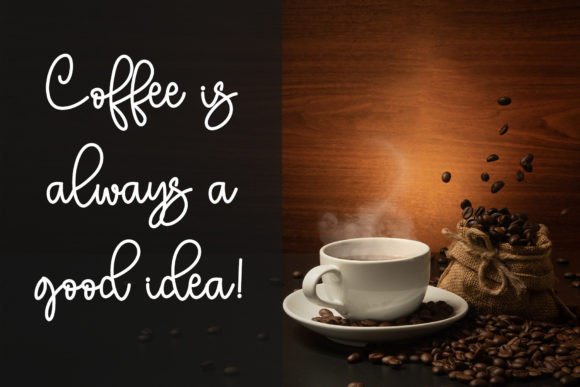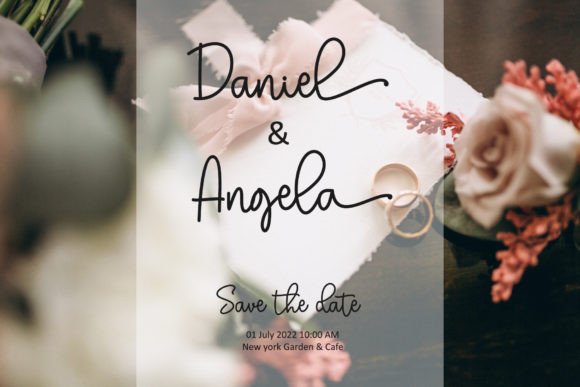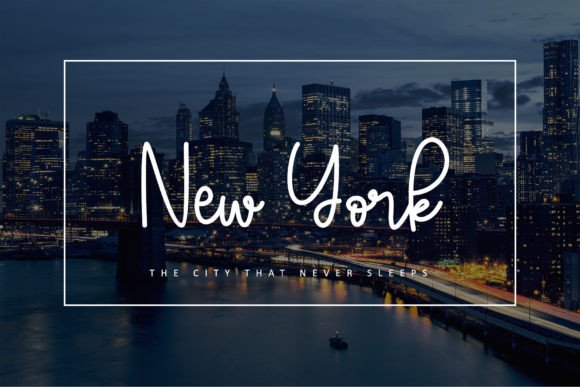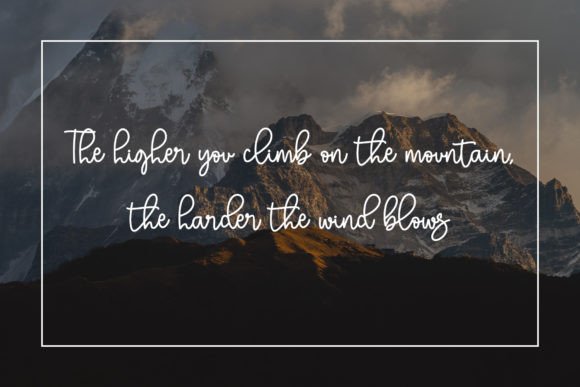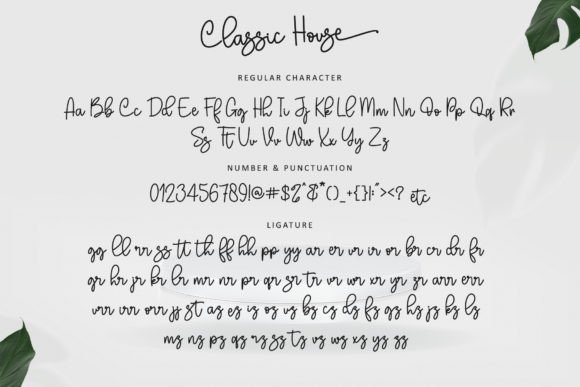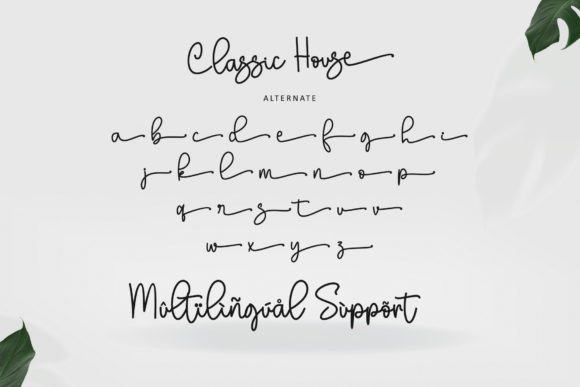
Introduction to Classic House Font
Have you ever stumbled upon a font that makes your creative project stand out from the crowd? For designers, finding the perfect font can be a game-changer. It’s that moment when the words on your screen come alive, and your design starts to take shape. That’s exactly what happens when you discover the Classic House Font.
This beautiful monoline font is more than just a design resource – it’s a tool that can elevate your branding, logos, and quotes to new heights. With its unique and elegant touch, the Classic House Font is sure to make your designs pop. And the best part? It’s PUA encoded, making it easy to access all the glyphs you need.
Key Features of Classic House Font
- High-quality design: The Classic House Font is a premium design resource that offers crisp and clear typography, making it perfect for creative projects.
- Large character set: The Classic House Font includes a large character set, covering a wide range of languages and characters, making it an ideal choice for international designs.
- Perfect for creative projects: The Classic House Font is a versatile design resource that can be used for a variety of creative projects, from logos and branding to packaging and advertising.
Honest Review: Classic House Font
I recently stumbled upon the Classic House Font, and I’m excited to share my honest review. As a designer, I’m always on the lookout for high-quality design resources to elevate my creative projects.
- ✨ The Classic House Font is a great addition to any design project, offering a unique and stylish aesthetic.
- ⚠️ The font may not be suitable for all design projects, particularly those requiring a more modern or edgy look.
Overall, I’m impressed with the Classic House Font’s high quality and versatility. While it may not be perfect for every design project, it’s a great resource to have in your toolkit. If you’re looking for a unique and stylish font to elevate your creative projects, the Classic House Font is definitely worth considering.
Tips for Getting the Most Out of Classic House Font
To get the most out of the Classic House Font, use it with a transparent background to create a clean and modern design. Experiment with different font sizes and styles to add visual interest to your project.
Common Use Cases for Classic House Font
The Classic House Font is ideal for a variety of creative projects, including logos, business cards, brochures, and social media graphics. Its high-quality design and versatility make it a popular design resource for designers and non-designers alike.